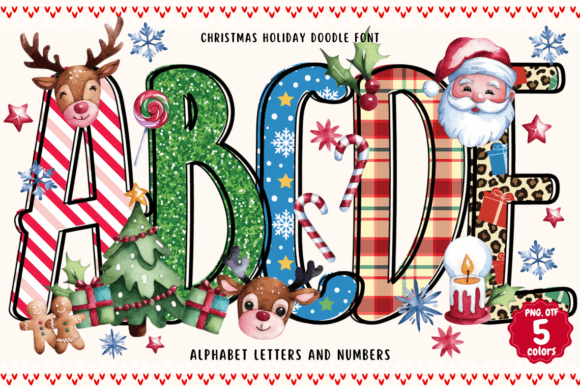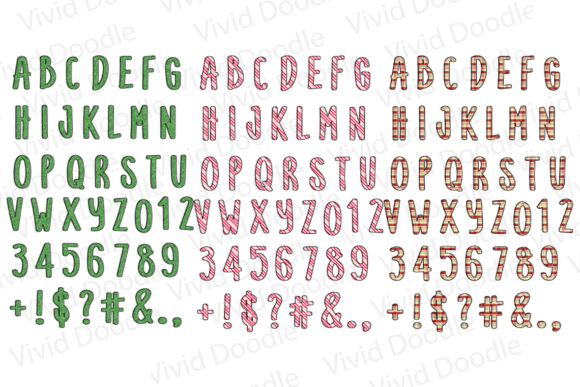
Christmas Holiday Doodle Font is a playful and festive handwritten typeface designed to bring holiday cheer to your projects. Featuring joyful doodles that evoke the magic of Christmas and winter, this font is perfect for creating holiday cards, posters, school projects, and creative art pieces. Whether you’re designing for Christmas-themed events, holiday decor, or crafting personalized gifts, Christmas Holiday Doodle Font will add a fun, whimsical touch to your designs. Ideal for graphic design, crafting, and seasonal projects, this font brings the spirit of the holidays to life!